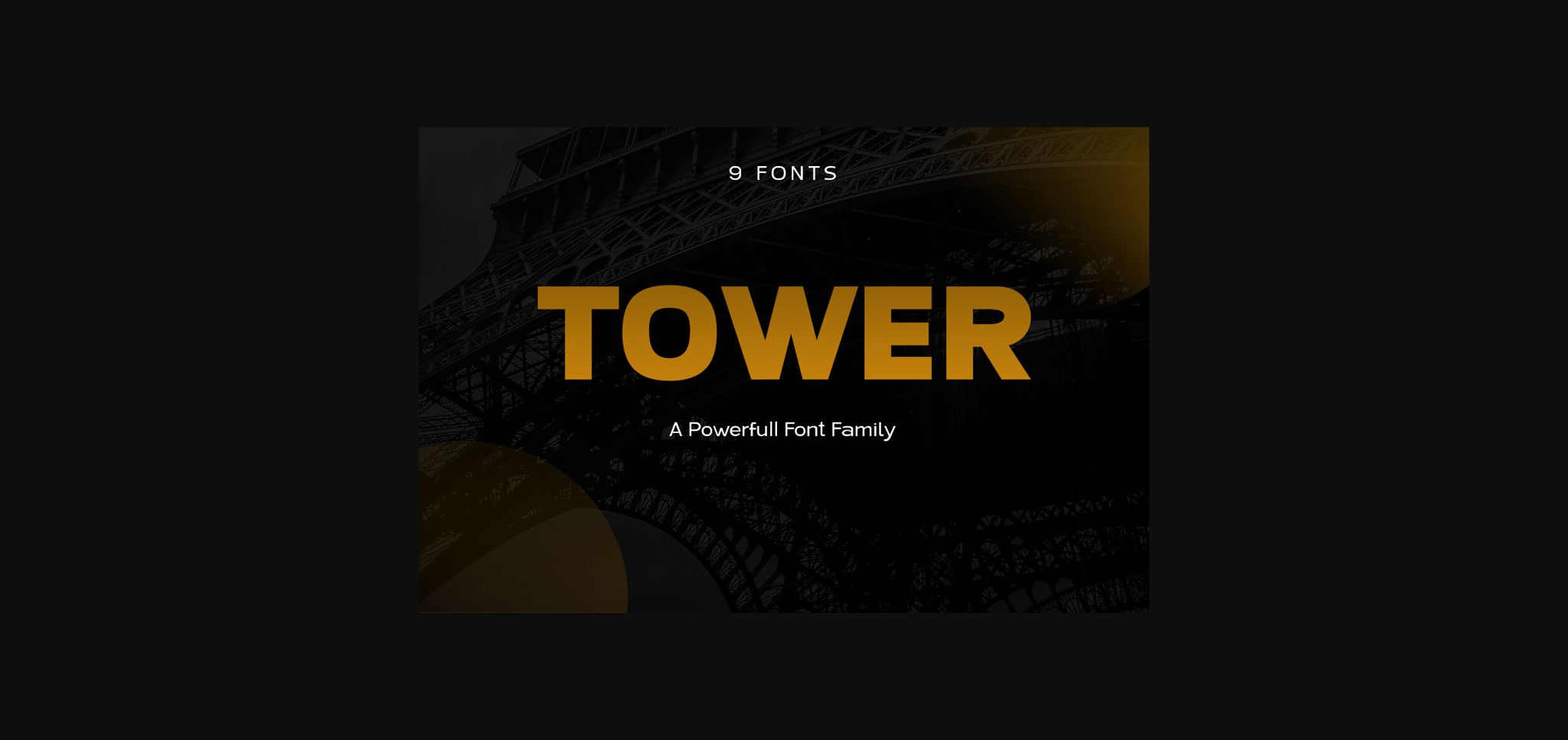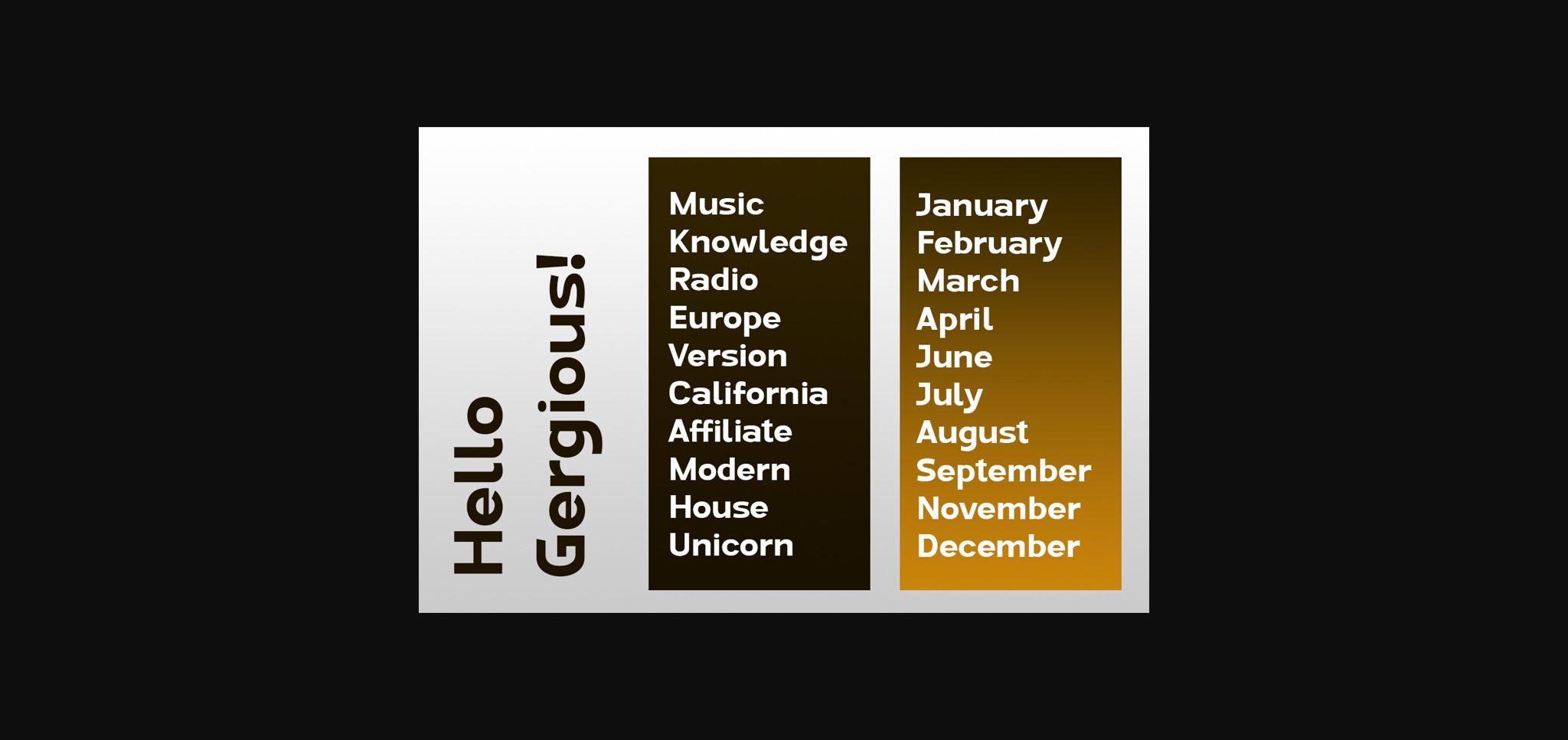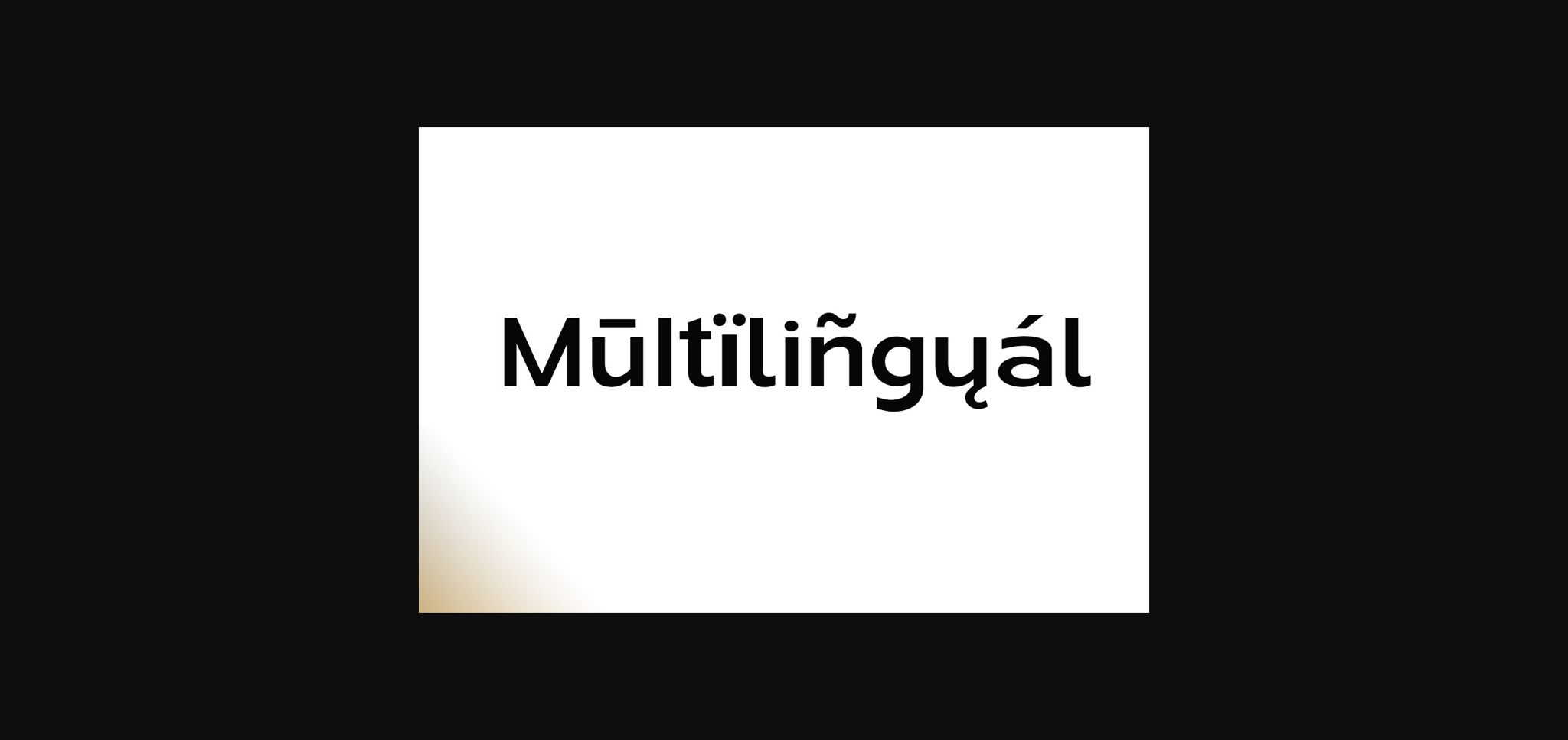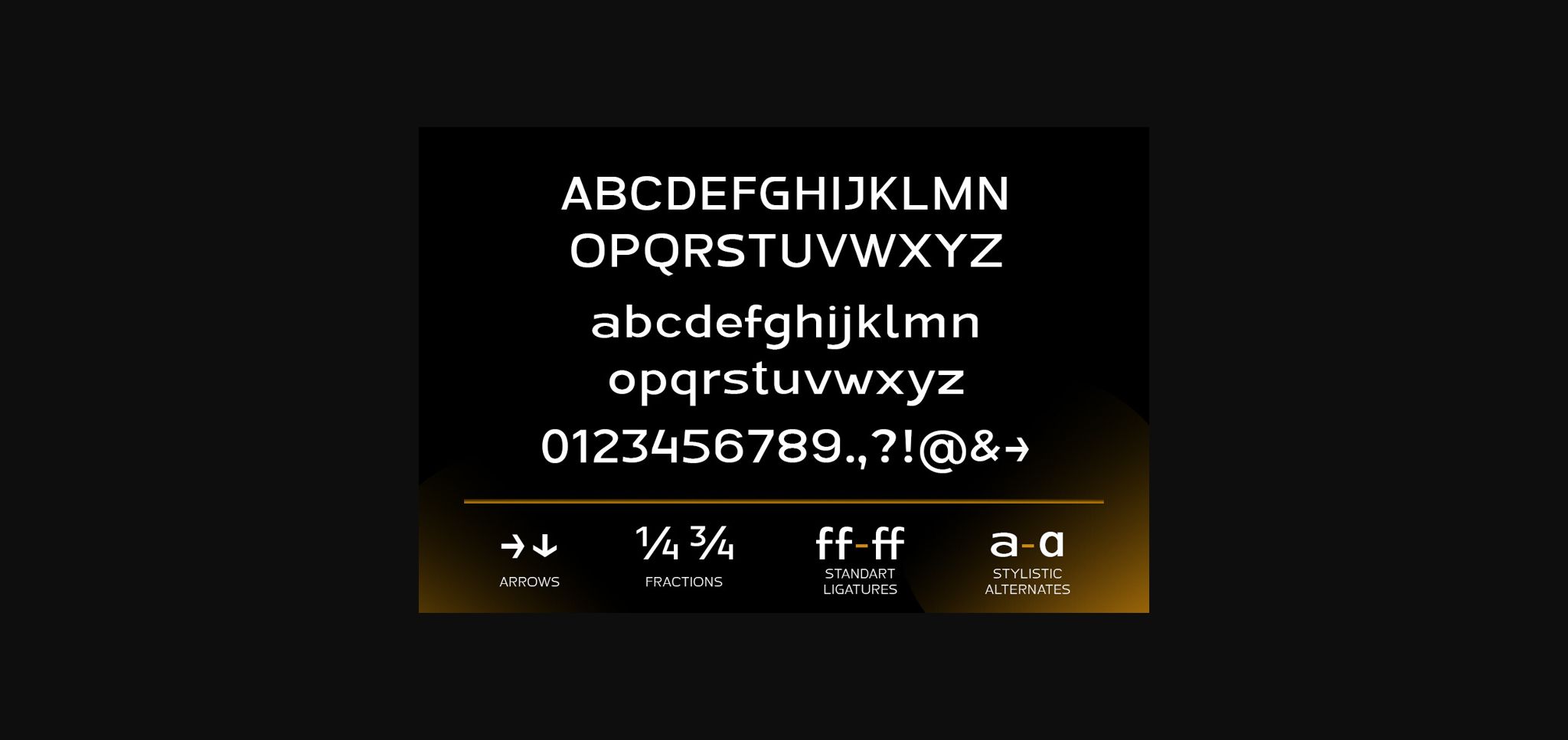
Tower Font
About Tower Font
Tower is a family of geometric sans serif fonts with unique characters for a distinctive touch. Simple yet sophisticated, this typeface design provides a clean and modern look. With a minimal design, low contrast, large x-height, and light to black weight, Tower is perfect as a workhorse text and display font for branding, advertising, packaging, headlines, magazines, websites, logo designs, and more.